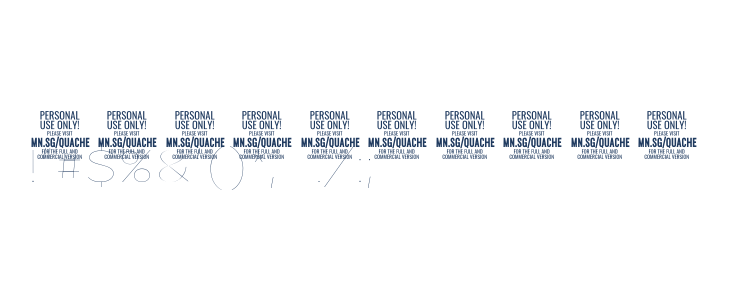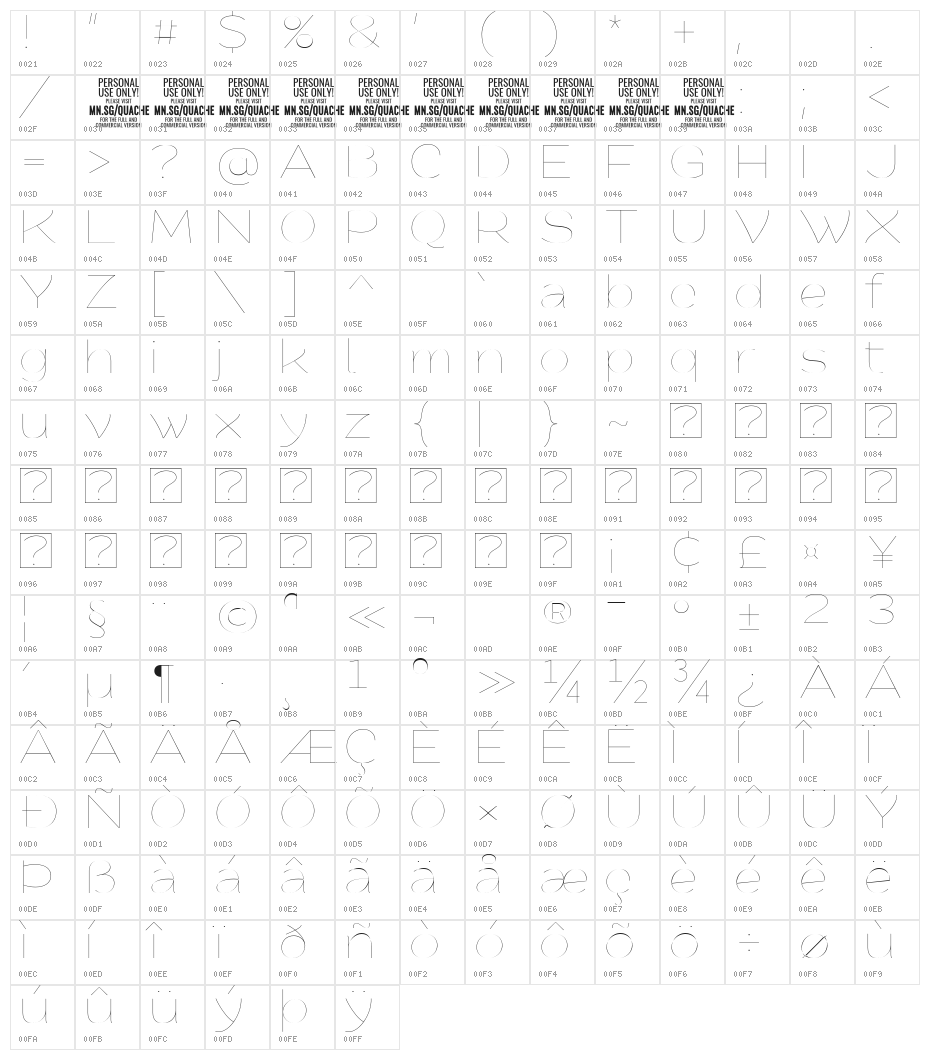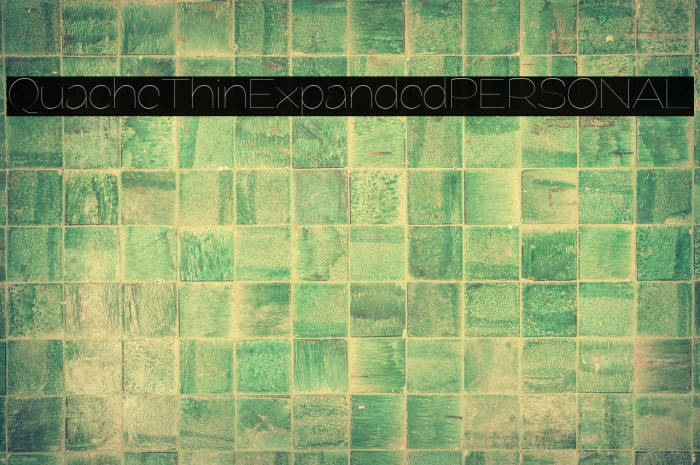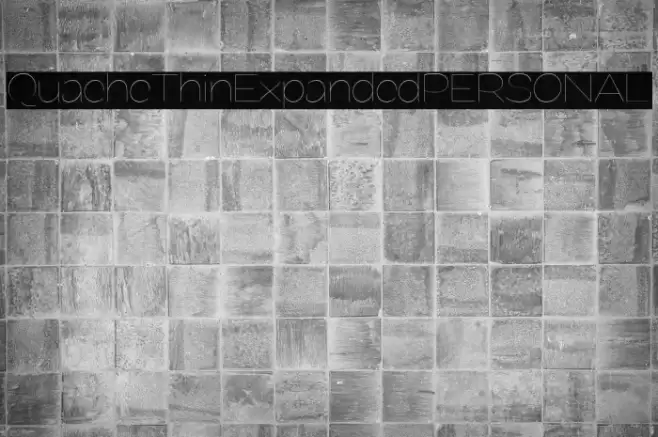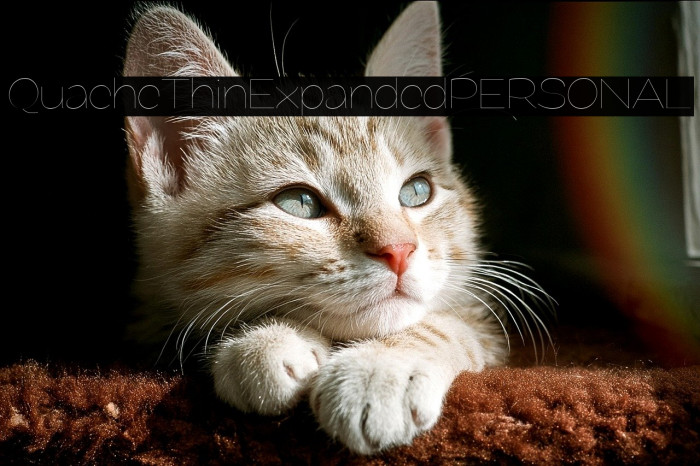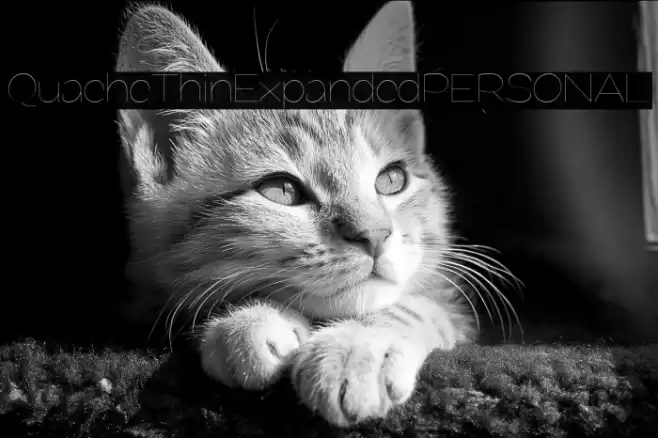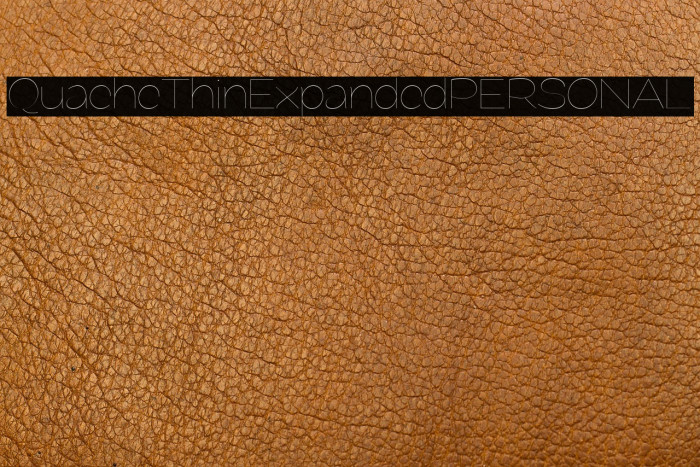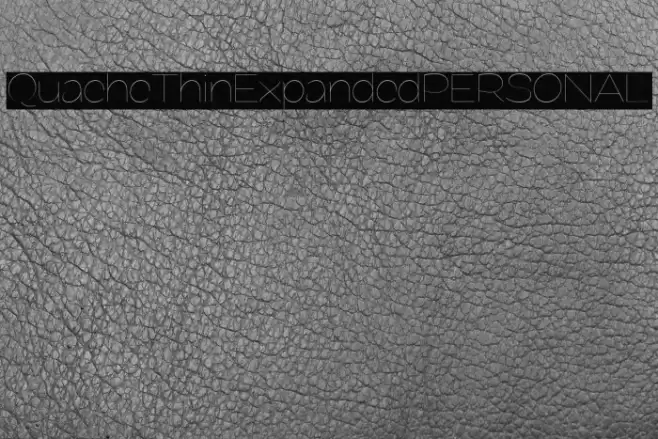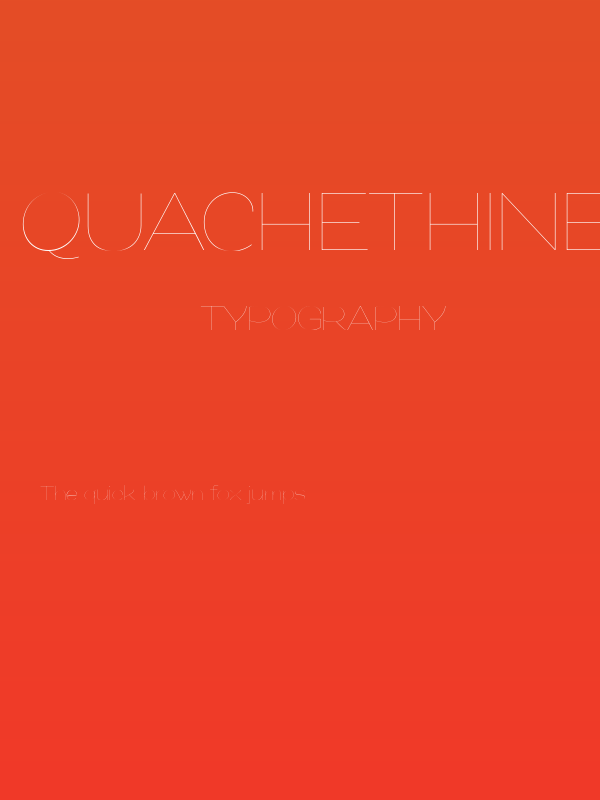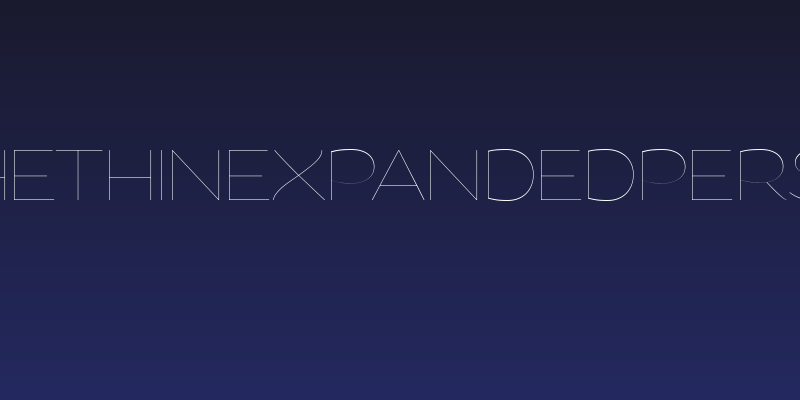
QuacheThinExpandedPERSONAL Font
QuacheThinExpandedPERSONAL Description
This font features a sleek, ultra-thin design with an expanded width, giving it a modern and airy appearance. The characters are elegantly elongated, with a consistent stroke width that maintains a minimalist aesthetic. The uppercase and lowercase letters are designed with a geometric precision, offering a clean and sophisticated look. The numerals and special characters follow the same design principles, ensuring uniformity across all glyphs. This font's style is particularly suited for contemporary design projects where a light and open feel is desired.